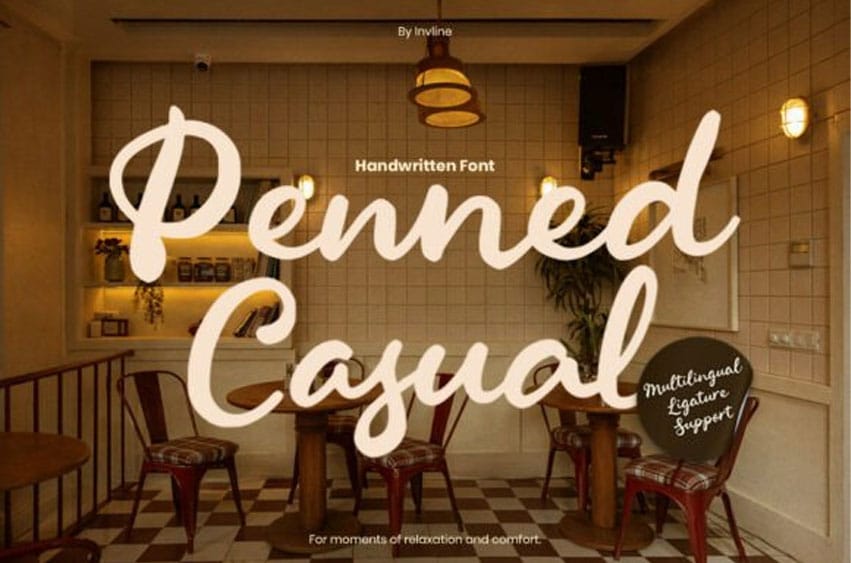
Penned Casual Font is a warm and friendly handwritten script font designed to bring softness, comfort, and natural charm into your designs. Inspired by cozy coffee shop moments, slow mornings, and relaxed conversations, this typeface flows effortlessly with smooth curves and balanced strokes that feel personal yet polished.
Its rounded letterforms and gentle rhythm create a welcoming atmosphere, making every word feel approachable and sincere. Penny Casual includes full uppercase and lowercase characters, numbers, punctuation, multilingual support, and beautiful ligatures that enhance the natural handwritten flow.
The ligature features help create seamless letter connections, giving your typography a more authentic and organic look. Perfect for café branding, bakery packaging, menu design, lifestyle quotes, social media graphics, logo design, product labels, posters, and cozy editorial layouts. Whether you’re building a coffee brand identity or crafting heartfelt quote posters, Penny Casual adds warmth and personality without feeling overpowering.